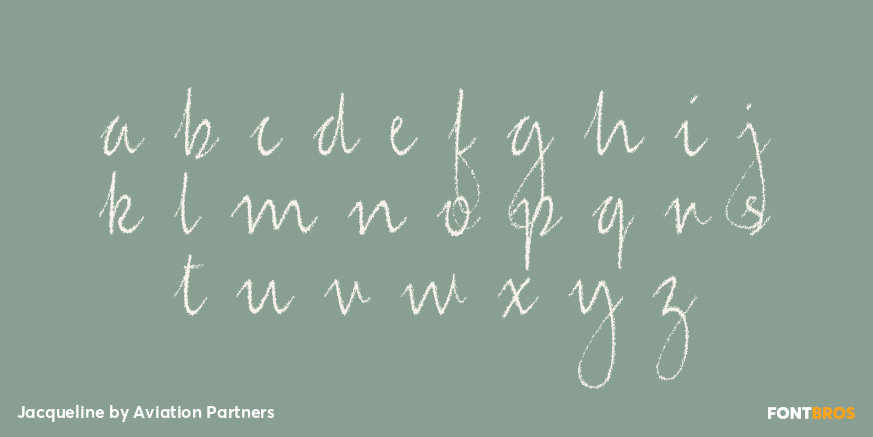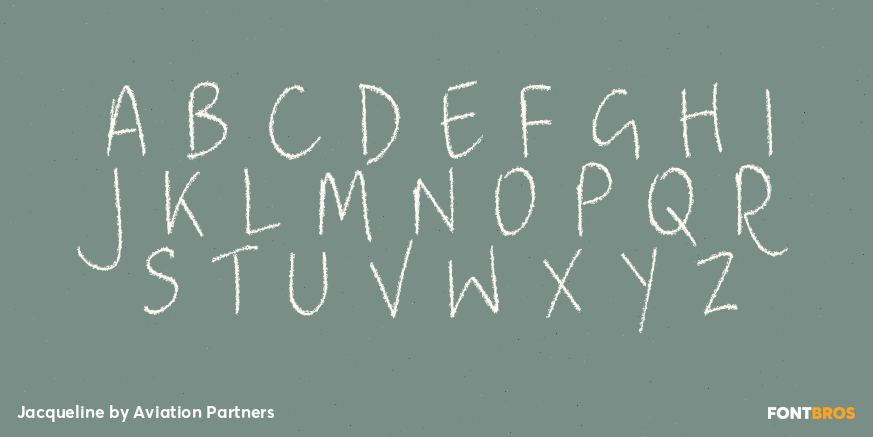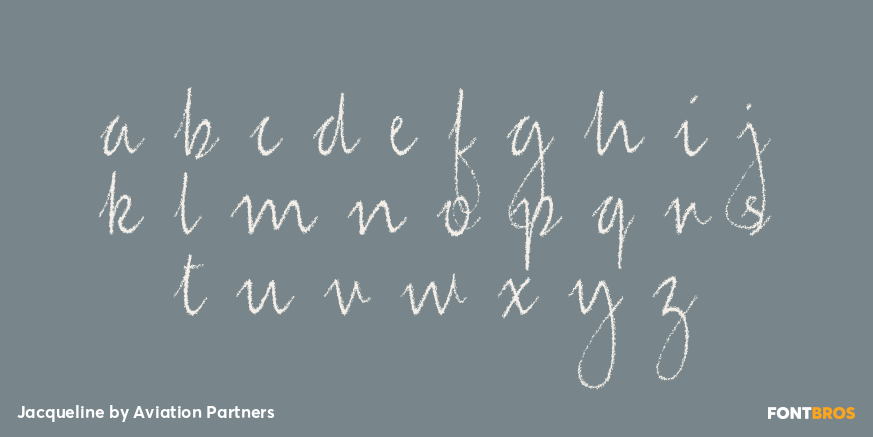
Jacqueline
Font Family by Aviation Partners
Buy NowJacqueline is the culmination of successive attempts to render the loose but controlled script of the eponymous writer's hand.
The result is a fluid script that resembles pencil or chalk and flows legibly and elegantly across page or screen. The lower case is seamlessly joined but the capitals are separated and may be used independently.